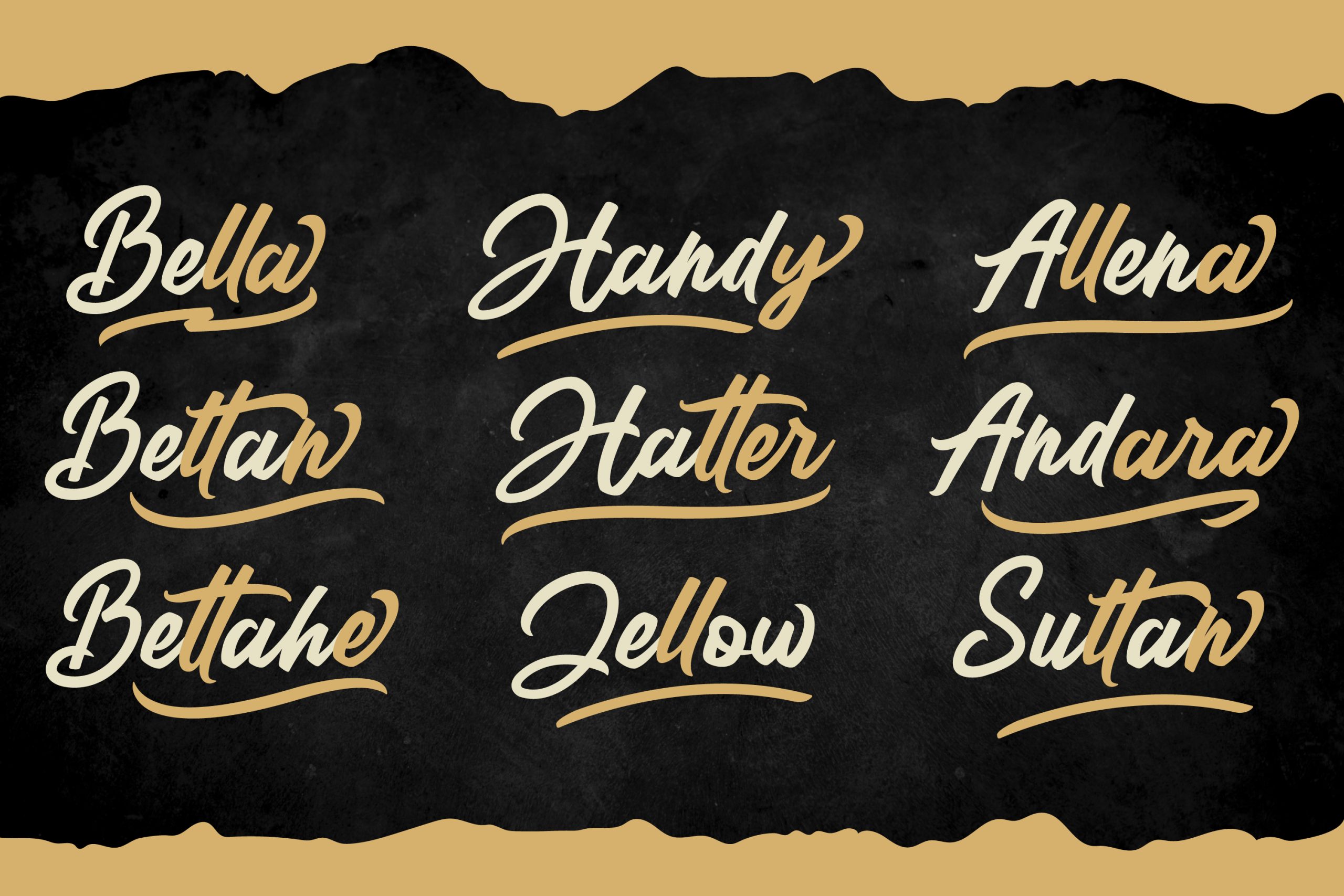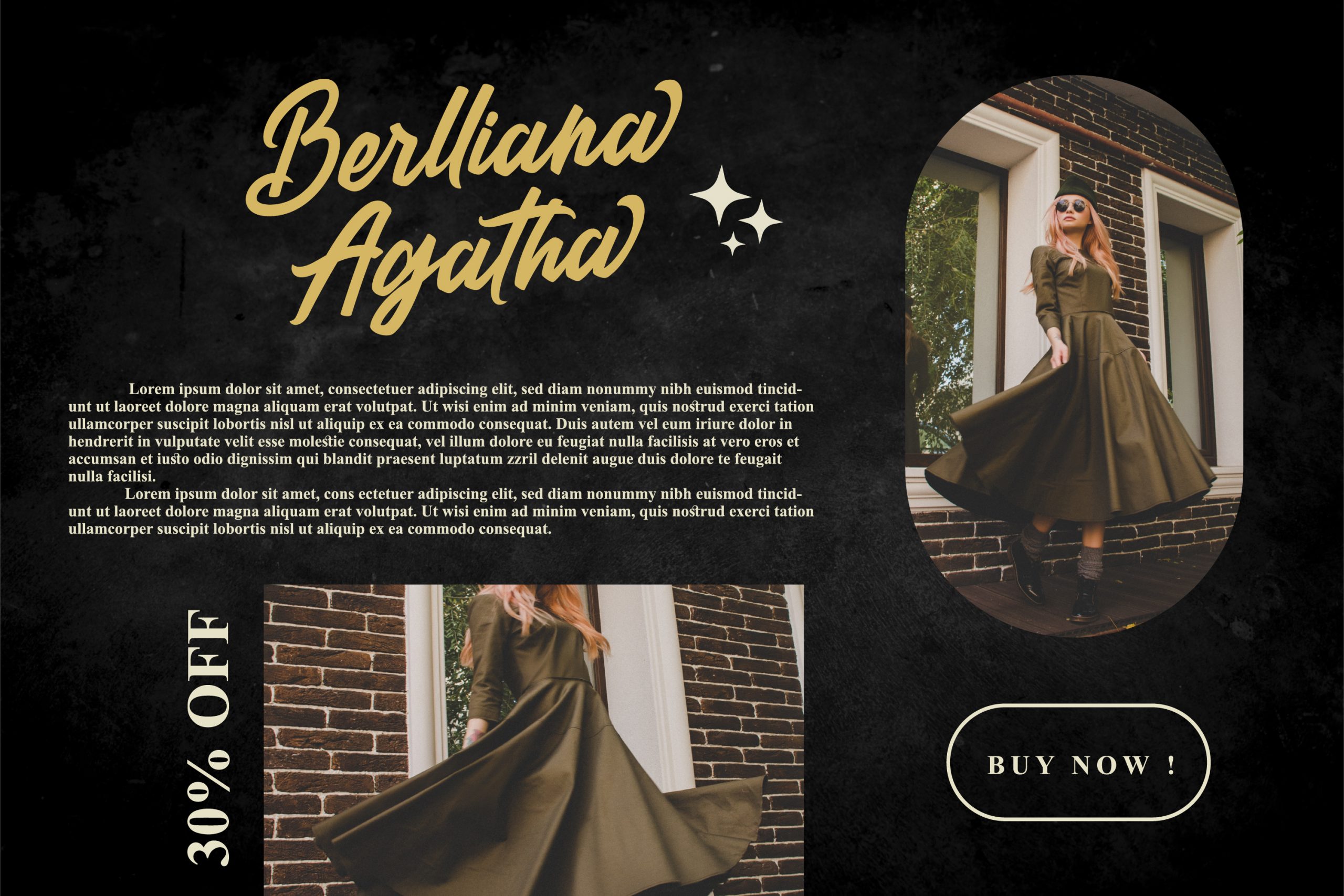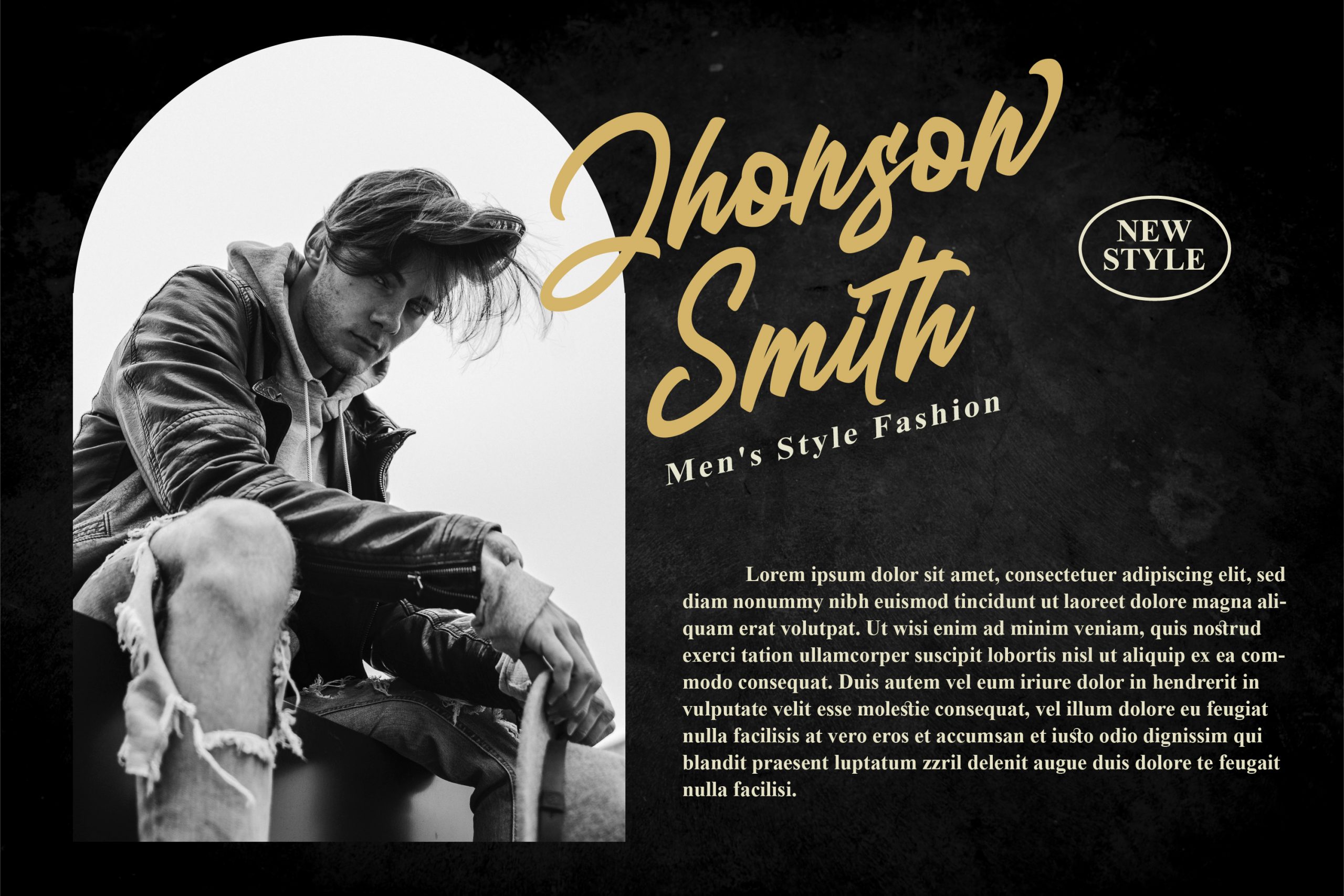
Jesicha Martine Font
Jesicha Martine Script Font
It’s a stylish handwritten font. It will add a luxury spark to any design project that you wish to create! This font is PUA encoded which means you can access all of the amazing glyphs and ligatures with ease!